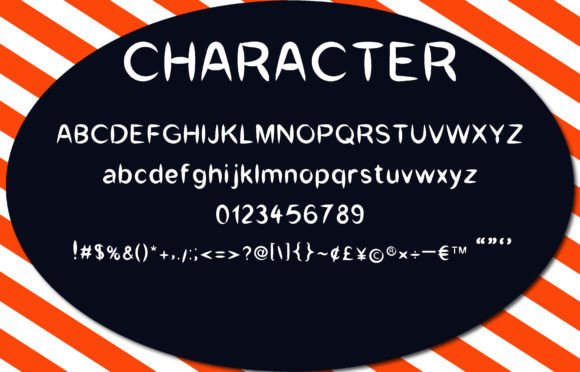
Introducing Elledge Font: The Ultimate Choice for Fun and Friendly Designs
Are you tired of using the same old fonts for your designs? Look no further! Elledge Font is here to add a touch of friendliness and fun to your projects. This sans serif font is perfect for crafters, digital designers, and anyone looking to create engaging and charming content. In this article, we’ll dive into the world of Elledge Font and explore its features, uses, and benefits.
What is Elledge Font?
Elledge Font is a carefully crafted sans serif font that exudes a friendly and fun vibe. Its clean and simple design makes it perfect for a wide range of projects, from digital designs to handmade crafts. Whether you’re creating greeting cards, presentations, or social media graphics, Elledge Font is sure to add a touch of personality to your work.
Key Features of Elledge Font
• Friendliness: Elledge Font is designed to be friendly and approachable, making it perfect for projects that require a personal touch.
• Fun and playful: The font’s playful design makes it ideal for projects that require a bit of whimsy and creativity.
• Versatility: Elledge Font can be used for a wide range of projects, from digital designs to handmade crafts.
• Ease of use: The font is easy to read and use, making it perfect for designers and crafters of all skill levels.
Uses of Elledge Font
Elledge Font is a versatile font that can be used for a wide range of projects, including:
• Crafts: Use Elledge Font to add a personal touch to your handmade crafts, such as greeting cards, scrapbook pages, and DIY projects.
• Digital design: Elledge Font is perfect for digital designers who want to create engaging and fun content for their clients or social media followers.
• Presentations: Add a touch of personality to your presentations with Elledge Font, making them more engaging and memorable.
• Greeting cards: Use Elledge Font to create custom greeting cards for special occasions, such as birthdays, weddings, and holidays.
Benefits of Using Elledge Font
So, why choose Elledge Font for your projects? Here are just a few benefits:
• Unique and creative: Elledge Font adds a touch of personality to your projects, making them stand out from the crowd.
• Ease of use: The font is easy to read and use, saving you time and effort in your design process.
• Versatility: Elledge Font can be used for a wide range of projects, making it a great addition to your font library.
• Fun and engaging: Elledge Font is perfect for projects that require a bit of fun and whimsy, making them more engaging and memorable.
Tips for Using Elledge Font
Here are a few tips for getting the most out of Elledge Font:
• Experiment with sizes: Try using Elledge Font in different sizes to add visual interest to your projects.
• Pair with other fonts: Combine Elledge Font with other fonts to create a unique and creative look.
• Use in combination with images: Elledge Font looks great when paired with images, making it perfect for projects that require a bit of visual interest.
Font Name Elledge Font
Author Cool Worker